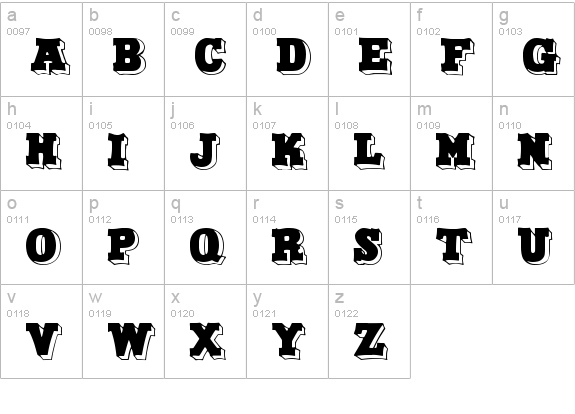
Duo Dunkel Font Details
Duo Dunkel is a modern and stylish font that effortlessly combines elegance with a touch of playfulness. With its clean lines and bold letterforms, this typeface is perfect for a wide range of design projects, from logo design to branding, packaging, and much more. Featuring a unique balance of sharp edges and smooth curves, Duo Dunkel exudes a sense of sophistication and creativity. Its versatility allows it to work well in both digital and print mediums, making it an ideal choice for any creative endeavor. This font offers a wide range of weights and styles, giving you the flexibility to create various typographic compositions. Whether you're aiming for a minimalist and refined look or a bold and eye-catching design, Duo Dunkel has got you covered. One of the best things about Duo Dunkel is that it is absolutely free to download. You can easily access this font at FontsMarket.com, a reputable online platform that offers a vast collection of high-quality fonts. With just a few clicks, you can add Duo Dunkel to your font library and start using it in your projects immediately. So why wait? Give your designs a touch of sophistication and creativity with Duo Dunkel. Download it for free at FontsMarket.com and let your creativity soar.